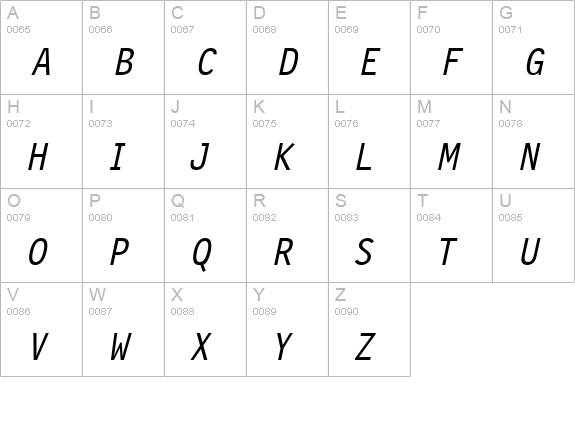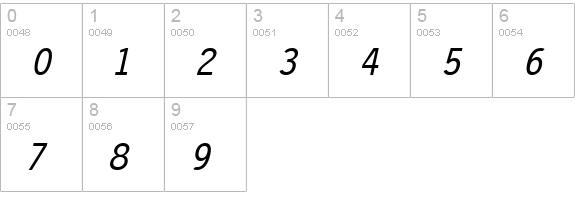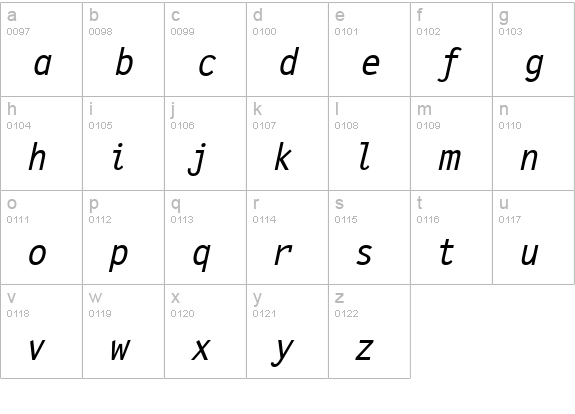
PFLetterGothicThree MedItalic Font Details
PFLetterGothicThree MedItalic is a stylish and versatile font that exudes elegance and modernity. Its sleek design and unique italicized style make it perfect for a wide range of design projects, from branding to editorial layouts. The crisp lines and subtle curves of this font add a touch of sophistication to any text. What sets PFLetterGothicThree MedItalic apart is that it is not only visually appealing but also completely free to download. Yes, you heard that right! This exceptional font is freely available for download at FontsMarket.com, making it accessible to designers and creatives of all levels. Whether you're working on a website, logo, poster, or any other design project, PFLetterGothicThree MedItalic is sure to make a statement. Its clean and modern look will help your text stand out and leave a lasting impression on your audience. Download this font today and take your designs to the next level!